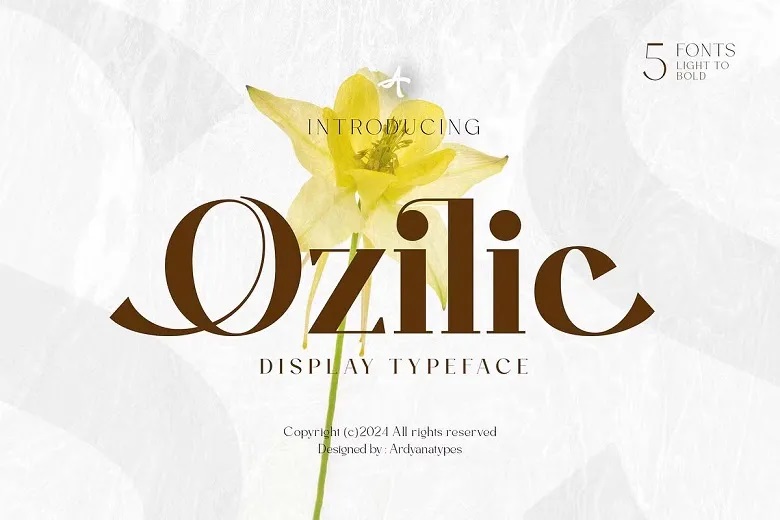
Ozilic Font
Ozilic is a modern elegance of a display serif font created to cater the need of numerous creative projects. Featuring the modern font styles, this font contains a full set of OpenType features that will make your design work more convenient. Whether you are designing posters, movies, books, media branding, or giant projects, Ozilic works well with any design type.
The most important advantage of Ozilic is, no doubt, its beautiful design, which is complemented by the availability of multiple languages, beneficial for companies operating in different countries. Transform your designs with the professional look and feel of Ozilic!
Ozilic Serif Font